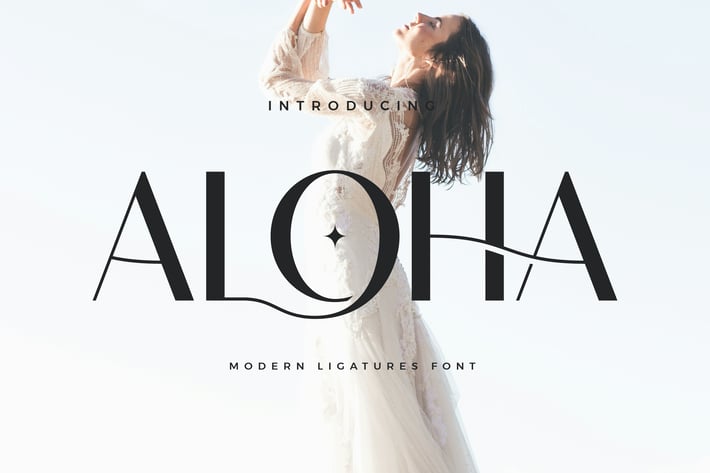
Aloha - Modern Ligature Font
Aloha Sans Font Typeface inspired by the famous minimalist logo perfect for the purposes of designing templates, brochures, videos, advertising branding, logos, invitation, layout design, elegant crafting, beauty design and other.